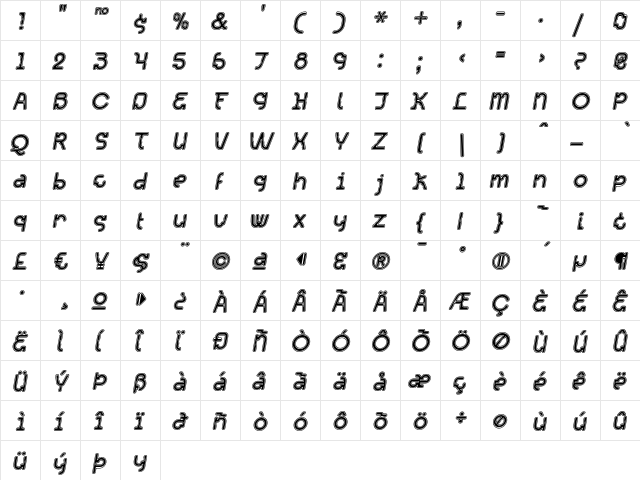
Acetone CollegiateOblique
Design Context for Acetone Typeface
Acetone is a composed and adaptable typeface that performs quietly and consistently across a wide range of design contexts. The slanted form adds forward momentum and visual energy.
Pro Tip: Try Acetone for annotation and caption copy alongside an upright companion — the contrast in angle creates a dynamic but ordered typographic system.